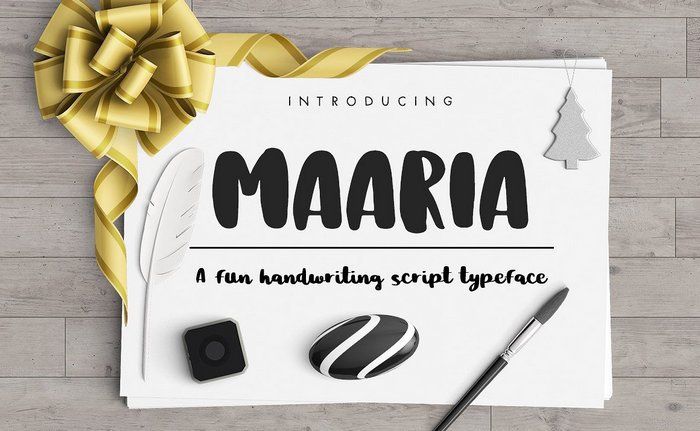
Maaria Brush Font
Hello friend! A fun handwriting script typeface. Introducing Maaria. Maaria Script is a fun handwriting script typeface with thick and thin stoke, giving off a fun, informal and teenage vibe. It can be used as a cute minimal-style header display or as a stylish text for craft, DIY or kids related project.